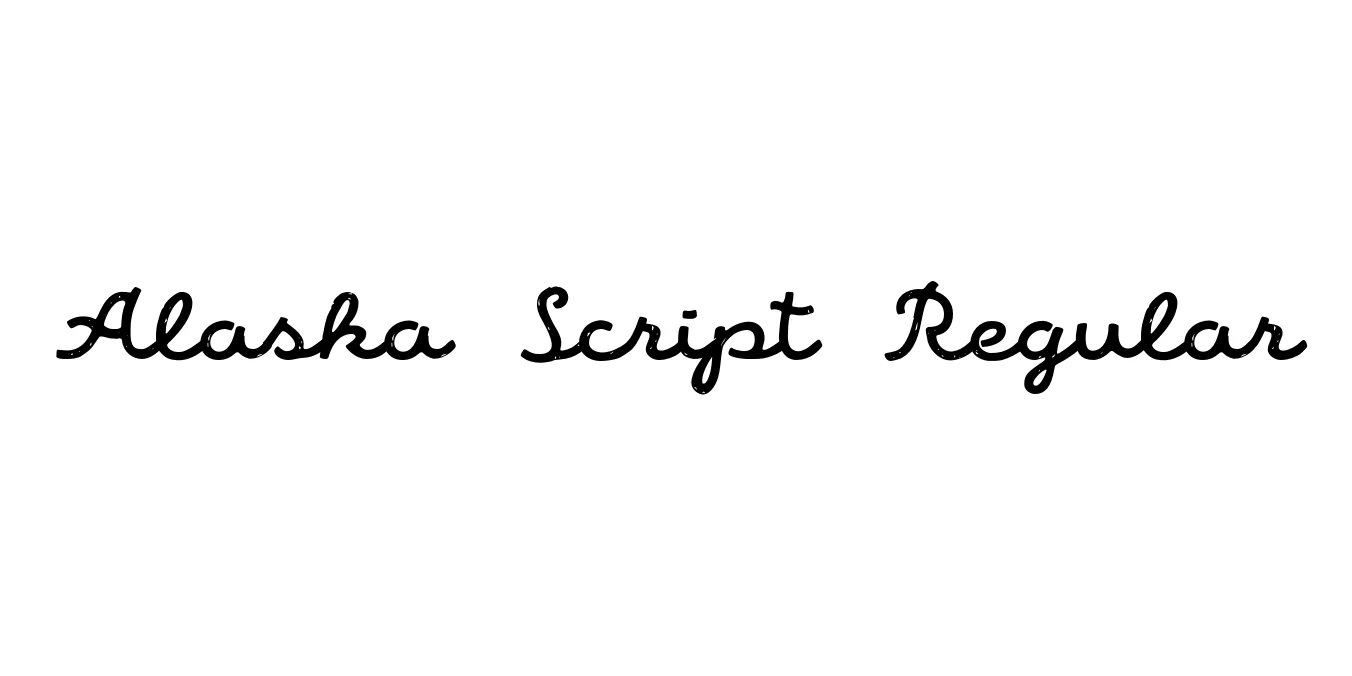
Alaska Script Regular
Designed by Letterhead Studio
Alaska Script Regular is a beautifully crafted brush script typeface designed to evoke the organic feel of natural handwriting. Its origins lie in the desire to bridge the gap between traditional calligraphy and modern digital design, providing users with a font that feels both timeless and current. The strokes are carefully balanced, offering a rhythmic flow that mimics the movement of a real pen on paper.
This typeface stands out due to its versatile application and high-quality character set, which includes numerous ligatures and alternates. It is widely used in high-end branding, promotional materials, and decorative print projects. Whether used for a minimalist logo or a detailed wedding invitation, Alaska Script Regular adds a layer of sophistication and personality that rigid sans-serif fonts cannot achieve.
Alaska Script Regular Best Uses
Perfect for elegant invites, save-the-date cards, and table settings.
Creates a memorable and personal logo for boutique brands and lifestyle businesses.
Ideal for eye-catching overlays, inspirational quotes, and high-end digital marketing.
Adds a premium, artisanal touch to product labels and gift boxes.